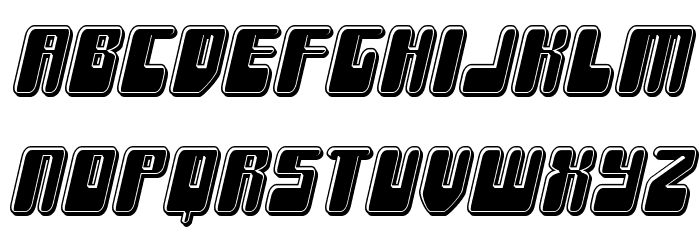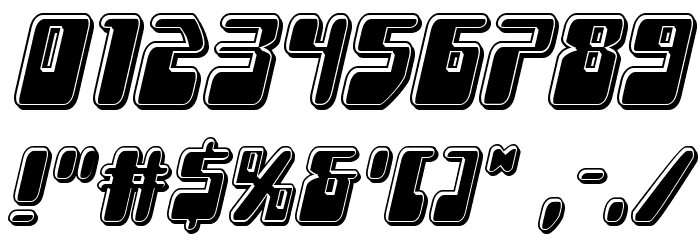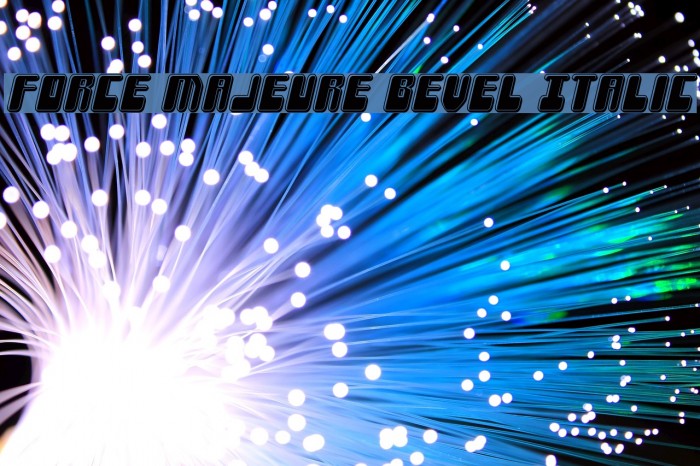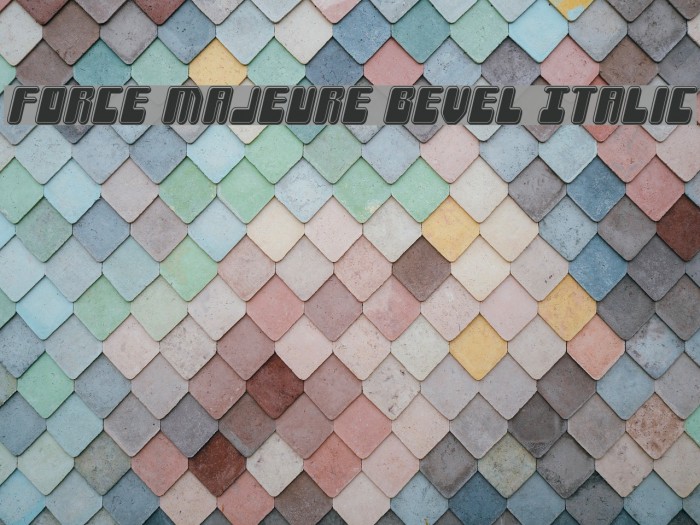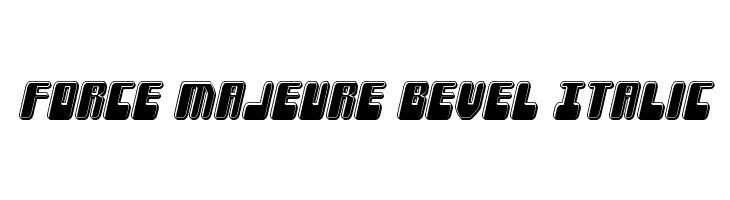
Force Majeure Bevel Italic Font
This font features a bold, italicized style with a distinct beveled edge, giving it a three-dimensional appearance. The characters are uniformly thick, with a strong presence that makes them stand out. The uppercase and lowercase letters maintain a consistent design, with rounded edges and a slight slant that adds dynamism. The numbers and special characters follow the same design principles, ensuring a cohesive look across all elements. The font's boldness and unique style make it suitable for attention-grabbing headlines and titles.
Bold, italicized font with a beveled, three-dimensional look.
- Font: Force Majeure Bevel Italic
- Proposed Projects: Ideal for posters, logos, video game titles, and any project requiring a bold, impactful typeface.